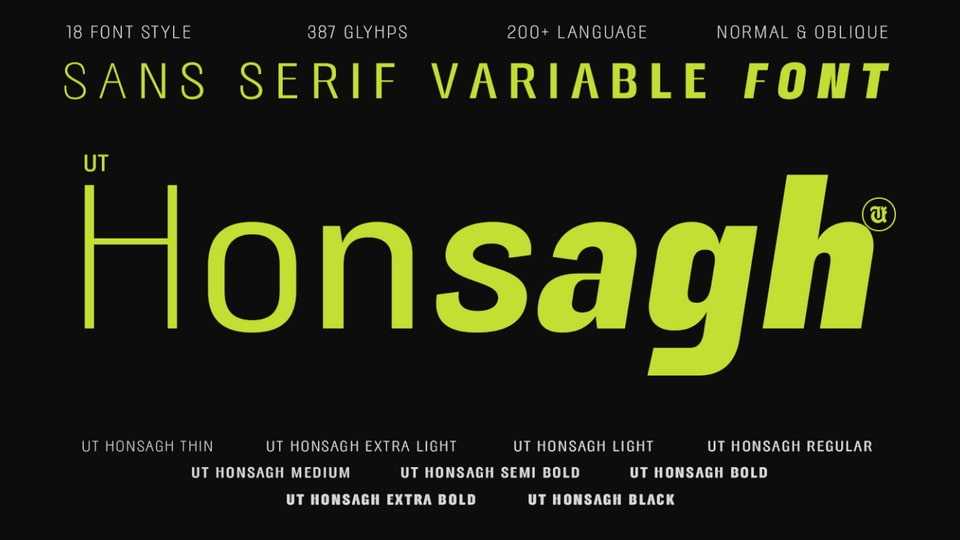
Download UT Honsagh font, a modern sans serif variable typeface designed for clarity, power, and adaptability. Whether you’re designing for digital interfaces, print media, or bold branding statements, UT Honsagh delivers with precision and personality.
Designer: Universitype Foundry